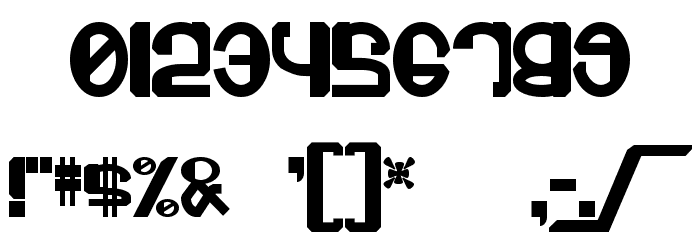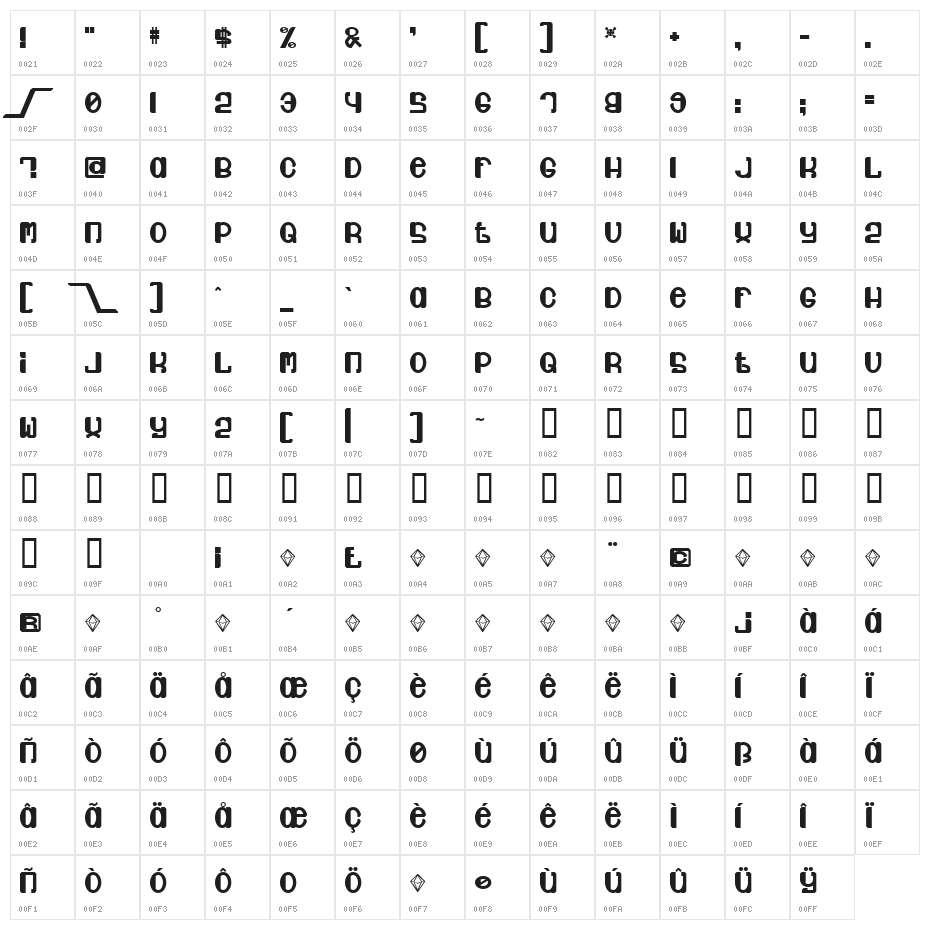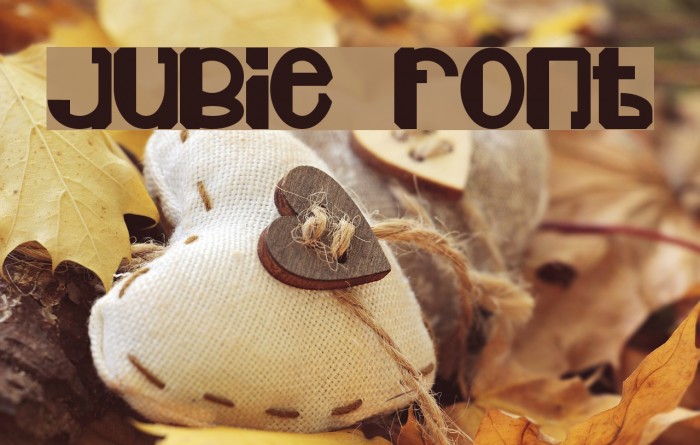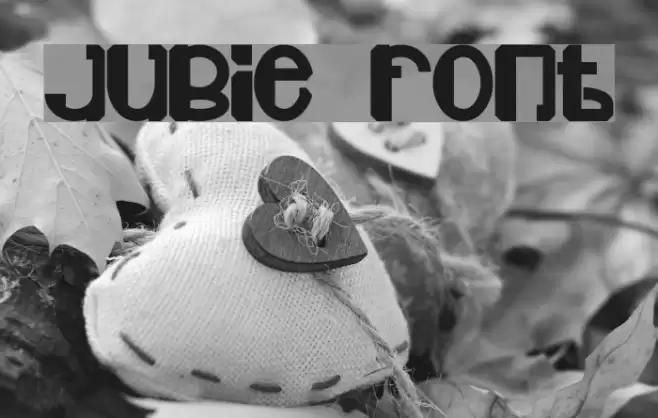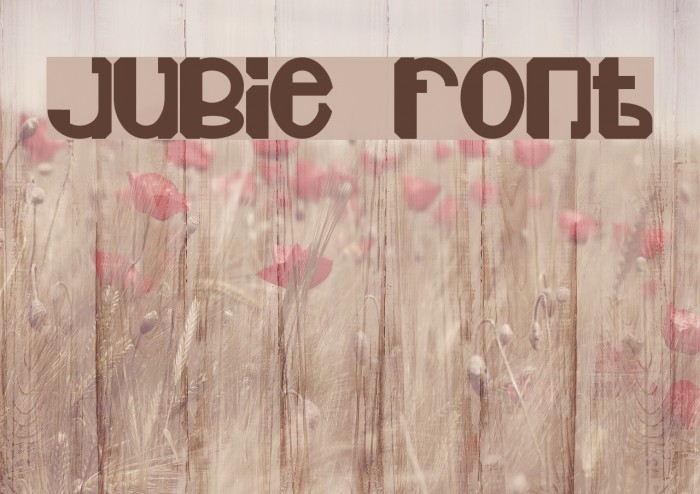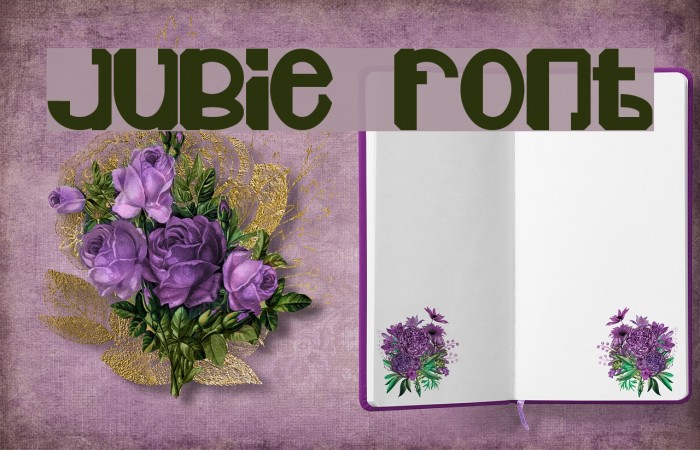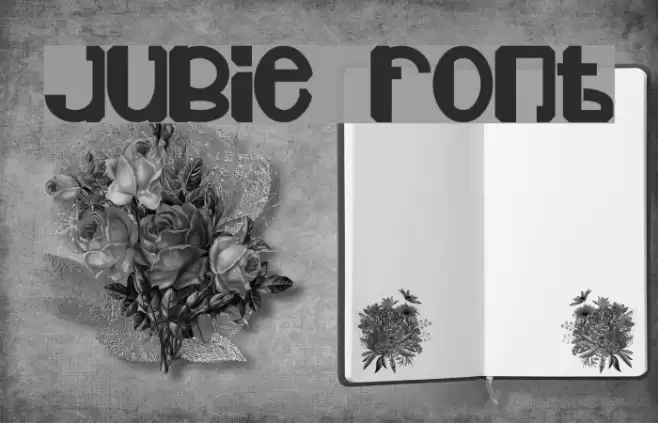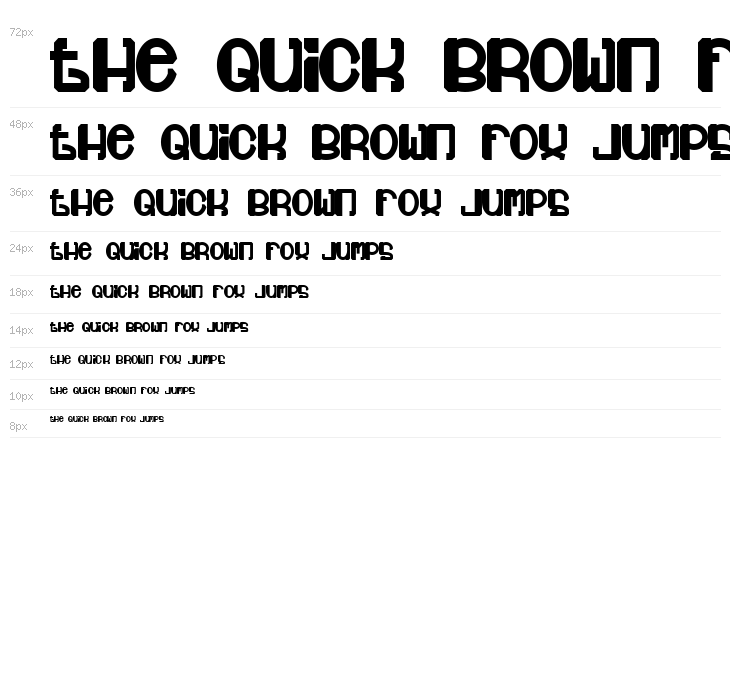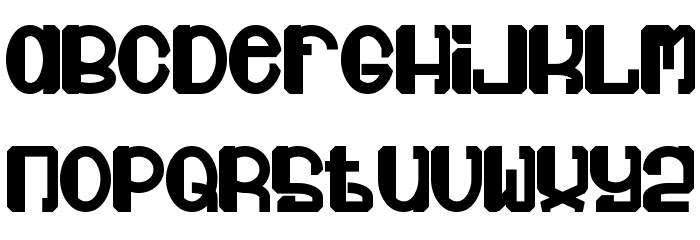
Jubie Font
Jubie Description
This font features a bold and geometric style with a strong presence. The characters are constructed with thick, uniform strokes that create a sense of solidity and stability. The design incorporates unique, angular elements that give it a modern and slightly futuristic feel. The uppercase and lowercase letters maintain a consistent weight, contributing to a cohesive look. The numerals and special characters are designed to match the boldness of the alphabet, ensuring uniformity across all text. This font's distinct style makes it suitable for eye-catching designs.